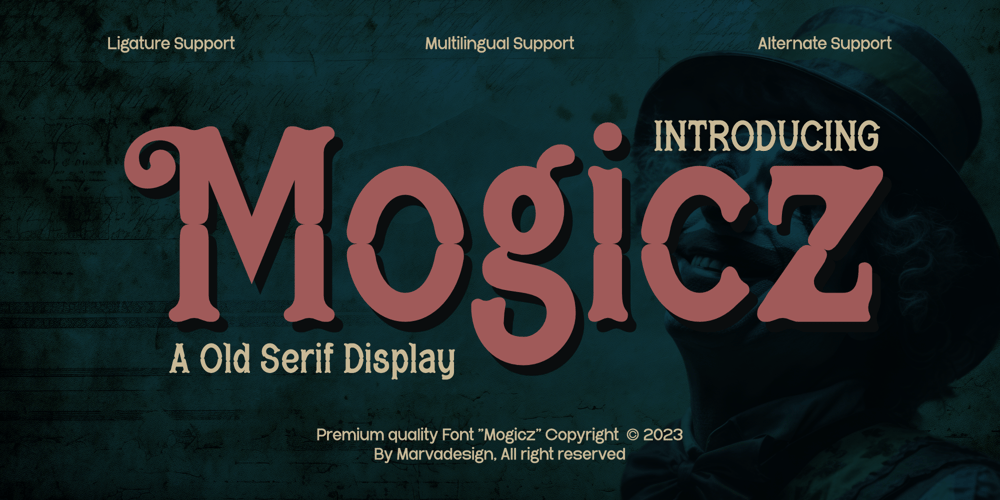
Mogicz
Mogicz font
Mogicz Font Family was designed by Febrie Setiawan and published by Marvadesign. Mogicz contains 1 styles and family package options. Introducing Mogicz is a vintage-inspired serif display typeface that evokes a classic circus or carnival atmosphere. It features bold, decorative letterforms with pronounced serifs and subtle ornamental details that add a touch of nostalgia. The typeface includes both uppercase and lowercase characters, along with numerals and special glyphs that enhance its versatility.The letterforms are characterized by slightly exaggerated curves and thick, sturdy strokes, giving the font a strong and playful presence. The inclusion of alternates and ligatures provides additional customization options, making it ideal for creative and themed designs. The font’s color scheme and shadowing effects in the promotional materials further emphasize its vintage appeal, reminiscent of early 20th-century signage, posters, and entertainment advertisements.With multilingual support and stylistic alternates, this font is well-suited for branding, event posters, and themed packaging. Its distinctive aesthetic makes it particularly effective for projects related to circus themes, vintage entertainment, and theatrical presentations.